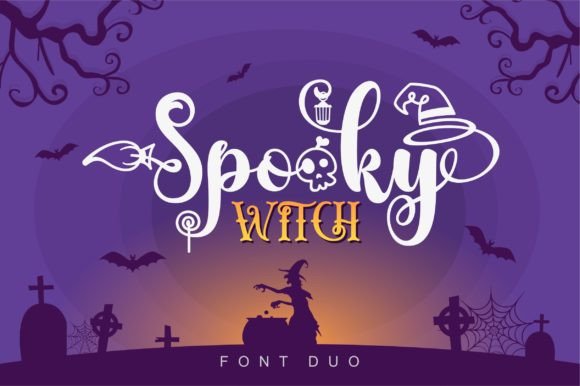
Introducing Spooky Witch Font, the ultimate choice for horror movie enthusiasts and Halloween enthusiasts alike! Crafted by the talented team at Tedha Studio, this font family is a captivating combination of a handwritten script and a stylish serif font. Get ready to unleash your creativity and take your designs to an entirely new level with this fun and spooky typeface.
The first thing that sets Spooky Witch Font apart is its unique Halloween-inspired decorative elements. With its scary yet cute theme, this font adds a touch of frightful charm to any project. Whether you're designing posters, invitations, or social media graphics for a horror movie event, this font will instantly captivate your audience and set the perfect eerie tone.
But Spooky Witch Font isn't just about looks; it's also designed to enhance your creative ideas. With its masterful design, this font has the power to transform ordinary text into a visually striking masterpiece. Each letter is meticulously crafted to ensure a seamless flow, making your words come alive on the page.
One of the standout features of Spooky Witch Font is its PUA encoding. This means that you have easy access to all the glyphs and swashes, allowing you to effortlessly customize and embellish your designs. Whether you want to add a touch of elegance or create eye-catching headlines, this font gives you the freedom to express yourself with ease.
Embrace the power of Spooky Witch Font and let your imagination run wild. Whether you're a professional designer or someone looking to add a spooky touch to their Halloween decorations, this font is the perfect companion. Its versatility and adaptability make it suitable for a wide range of projects, ensuring that your creativity knows no bounds.